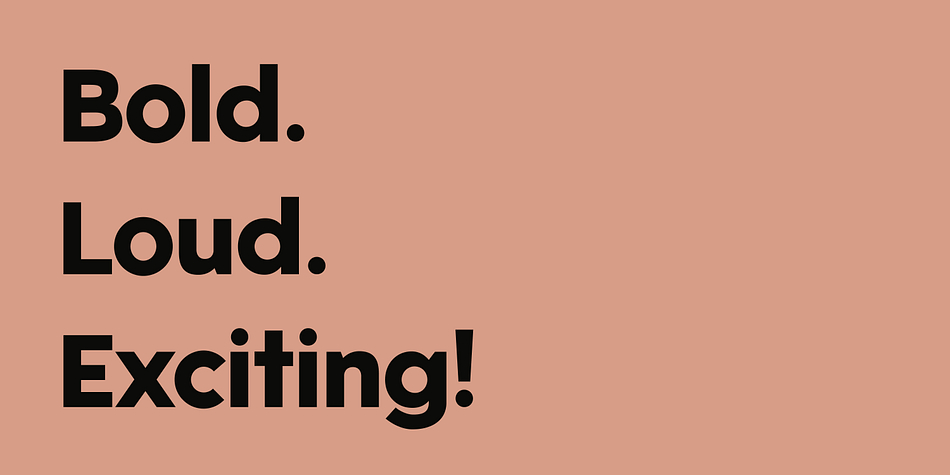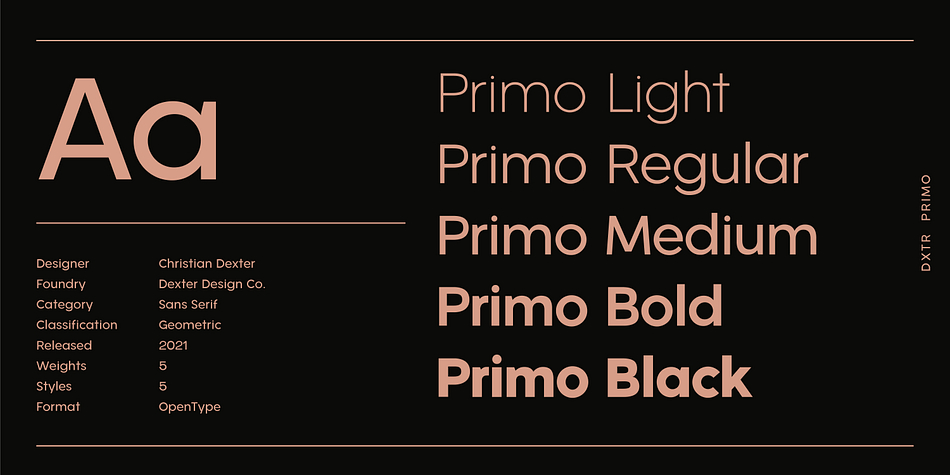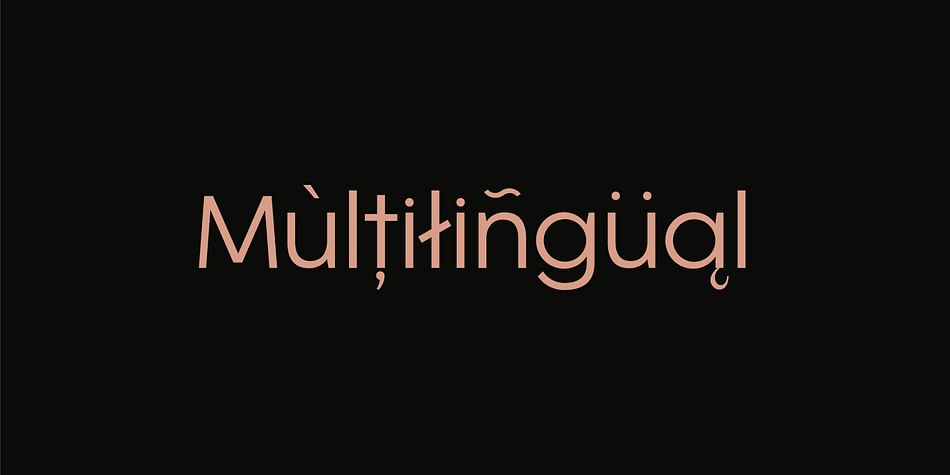
DXTR Primo
DXTR Primo is a sans serif font family. This typeface has five styles and was published by Dexter Design Co.
DXTR is a workhorse geometric sans serif font, built for copy text or display type. It has unique characteristics that make it interesting at large scales, while still maintaining its functionality at small scales. Designed with function in mind, DXTR is the typeface of choice for Dexter Design Co.